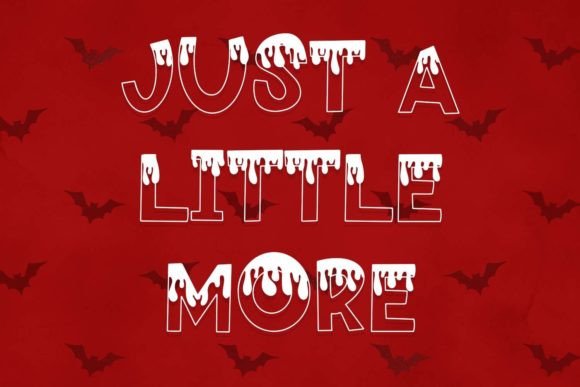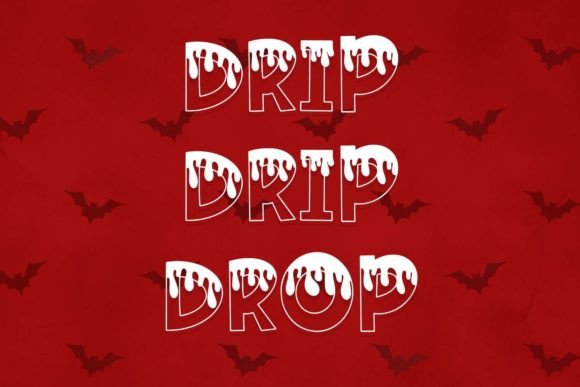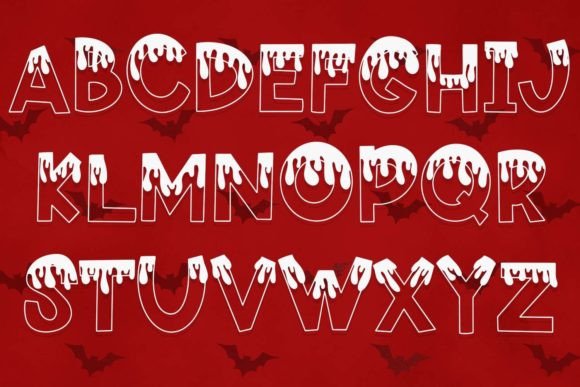
Bloody Mary Font: The Ultimate Spooky Display Font for Halloween
Are you looking for a font that will add a spooky touch to your Halloween designs? Look no further than Bloody Mary, a dripping Halloween display font that’s perfect for creating eye-catching monograms, t-shirt designs, and other Halloween-themed projects.
Introducing Bloody Mary
Bloody Mary is a unique and eerie font that’s designed to capture the spirit of Halloween. With its dripping, blood-like effect, this font is sure to add a touch of horror and excitement to any design. Whether you’re a designer, crafter, or simply a Halloween enthusiast, Bloody Mary is the perfect font for you.
Uses for Bloody Mary Font
Bloody Mary is a versatile font that can be used in a variety of ways. Here are a few ideas to get you started:
- Monograms: Use Bloody Mary as a monogram for a spooky shirt or tote bag. Simply type in the initials and add a few drips for a creepy effect.
- Halloween Projects: Add Bloody Mary text to your next Halloween project, such as a party invitation, flyer, or social media post.
- T-Shirt Designs: Create a spooky t-shirt design using Bloody Mary font. You can add a few ghostly images or Halloween-themed graphics to complete the look.
- Signs and Banners: Use Bloody Mary to create eye-catching signs and banners for your Halloween party or event.
Features of Bloody Mary Font
Bloody Mary font has several features that make it perfect for Halloween designs:
- Dripping Effect: The font’s dripping effect gives it a spooky, blood-like appearance that’s perfect for Halloween.
- Unique Design: Bloody Mary font has a unique design that’s sure to stand out from other fonts.
Tips for Using Bloody Mary Font
Here are a few tips for using Bloody Mary font:
- Use it Sparingly: Because Bloody Mary font is so bold and eye-catching, it’s best to use it sparingly. Use it for headings or titles, and a simpler font for body text.
- Experiment with Colors: Bloody Mary font looks great in a variety of colors, including red, black, and purple. Experiment with different colors to find the one that works best for your design.
- Add Graphics: Consider adding a few Halloween-themed graphics, such as ghosts, bats, or jack-o-lanterns, to complete your design.
| Font Name | Bloody Mary Font |
| Author | Flourish And Pixels |
Bloody Mary font is the perfect addition to any Halloween design. With its dripping, blood-like effect and easy-to-use design, it’s sure to add a touch of horror and excitement to any project. Whether you’re a designer, crafter, or simply a Halloween enthusiast, Bloody Mary font is a must-have for the spooky season.